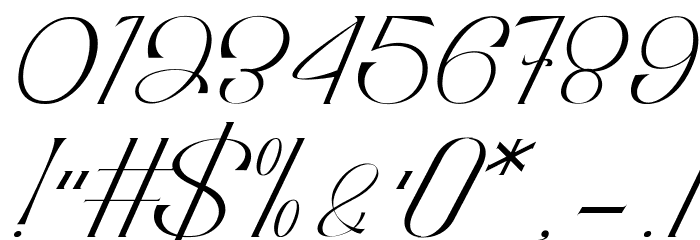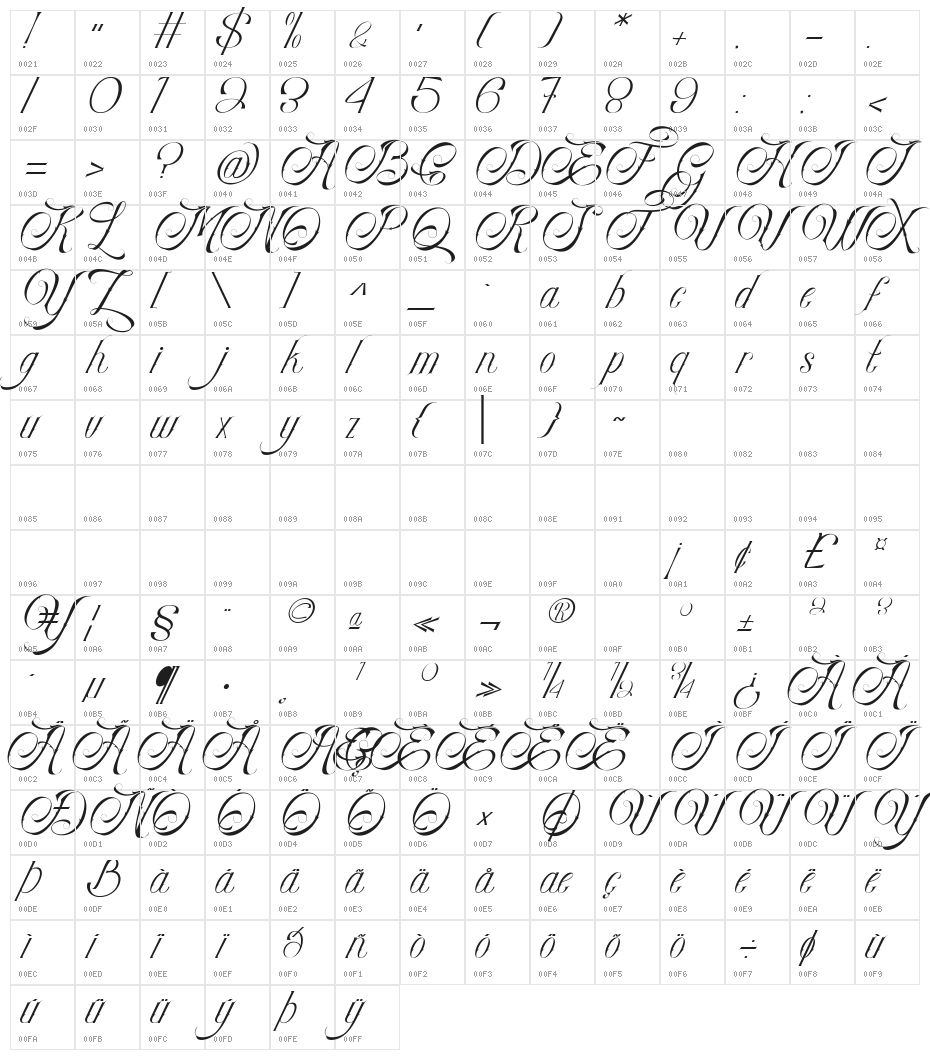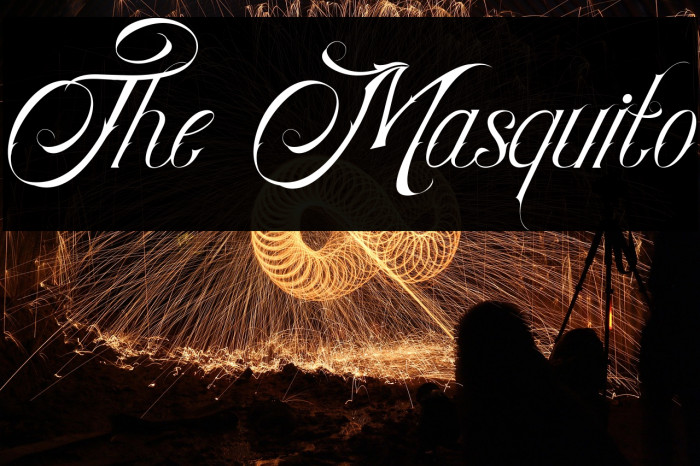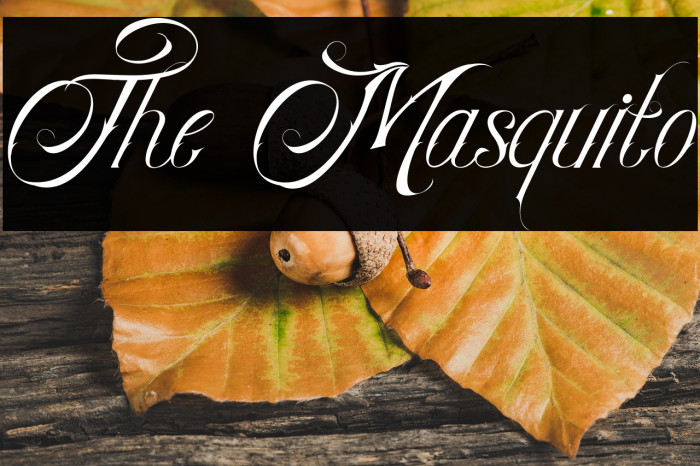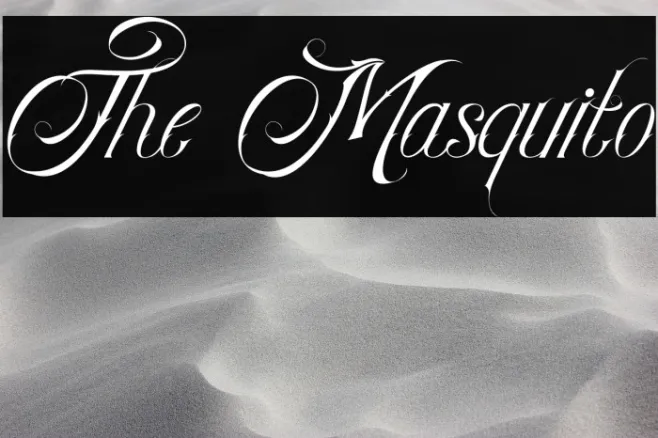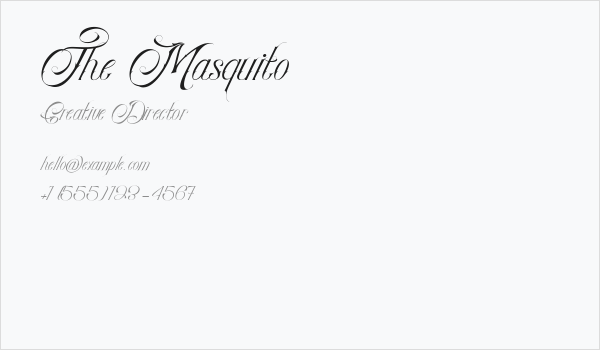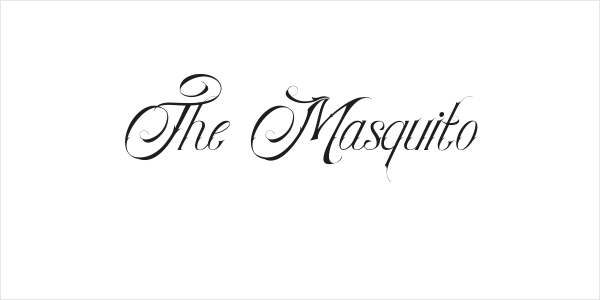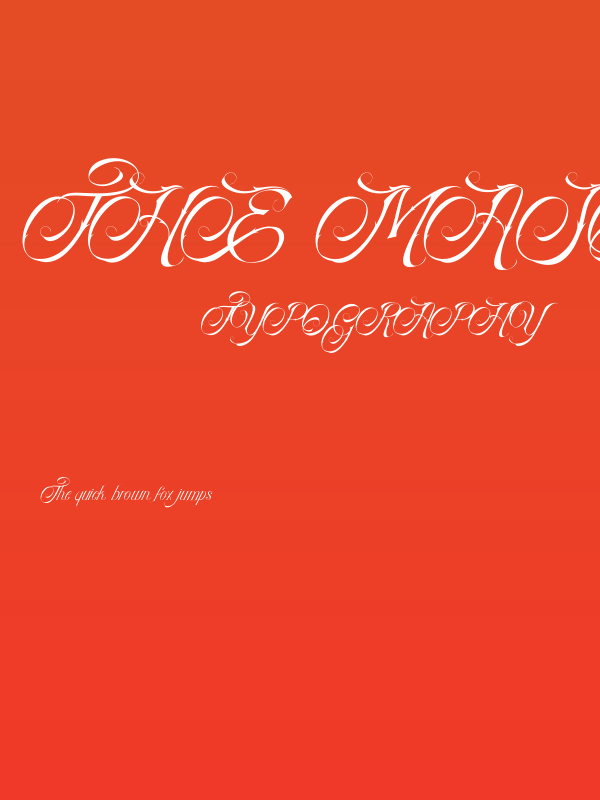
The Masquito Font
This elegant script font features flowing, interconnected characters with a sophisticated flair. The uppercase letters are adorned with intricate swirls and loops, giving them a decorative and ornate appearance. The lowercase letters maintain a smooth, cursive style that complements the uppercase, with a slight slant that adds to the font's dynamic nature. The numerals are consistent with the script style, featuring gentle curves and a refined look. Special characters are designed with similar embellishments, ensuring a cohesive aesthetic throughout. The overall design exudes a sense of luxury and formality, making it ideal for high-end branding or invitations.
| Use Case | Logos, Invitations, Headlines |
| Proposed Projects | Ideal for wedding invitations, luxury branding, elegant stationery, and formal event programs. |